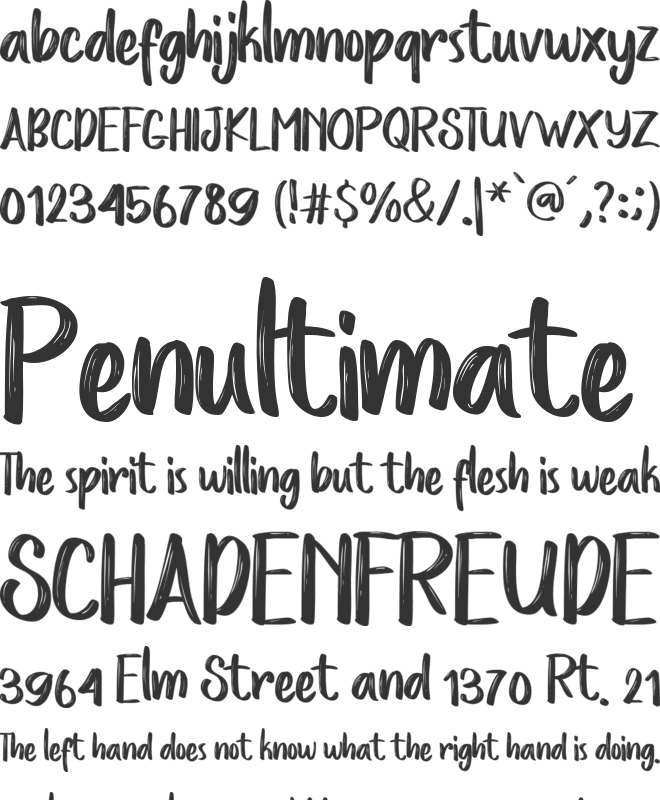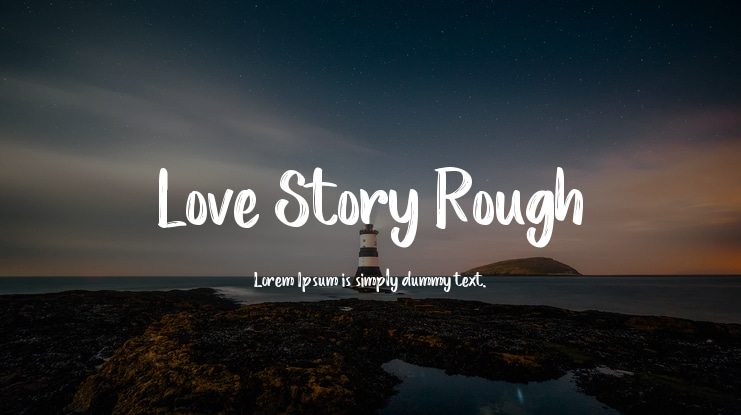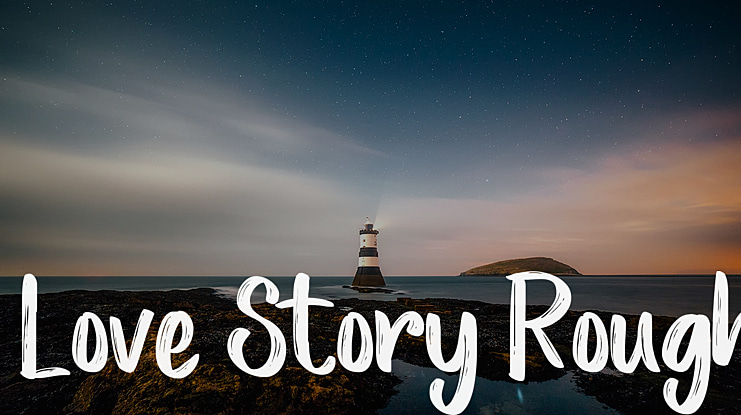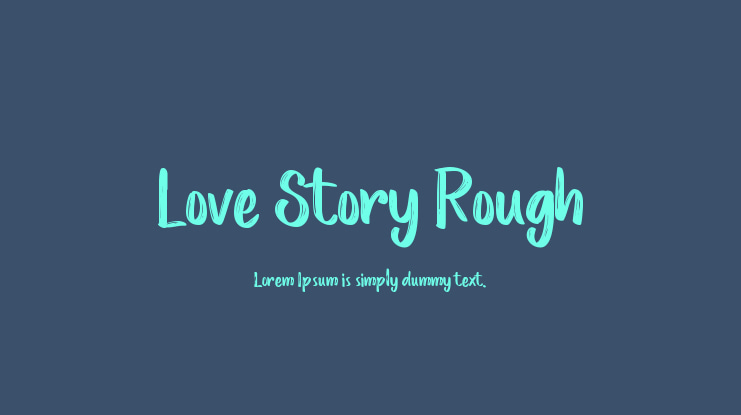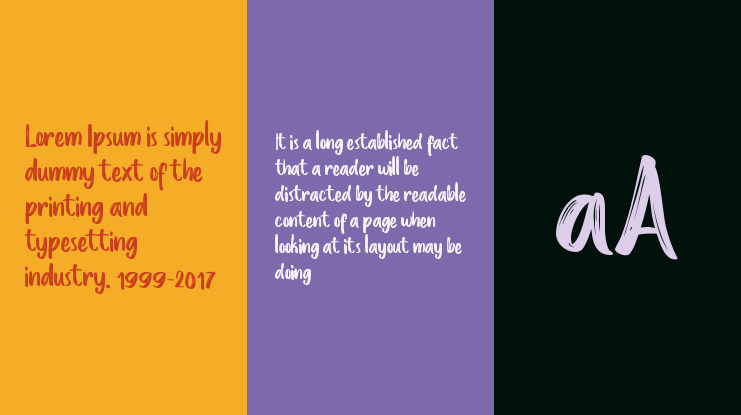
Love Story Rough Font
Ari Fadli (Debut Studio)
Introducing love story font
This font is handmade and Very suitable for those of you who like handcrafted, you can use it for various design purposes. Very suitable for design purposes that prioritize the natural side of handwriting like, birthday invitation, book cover or music album, for the purposes of correspondence, brochures, business cards and many more. Apart from its attractive font shape, this font also has some unique alternatives. Each character has 4 alternative form of heart that appears at the top and bottom as well as the left and right side.